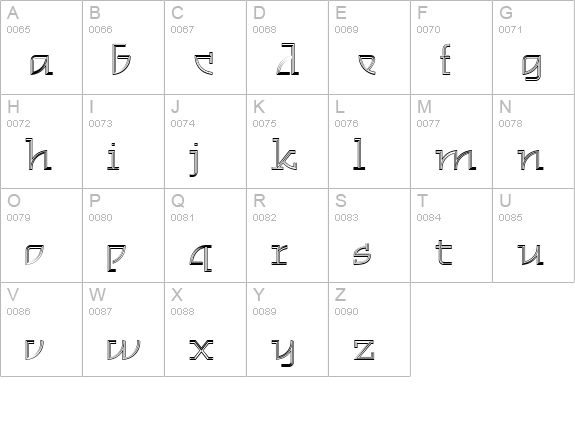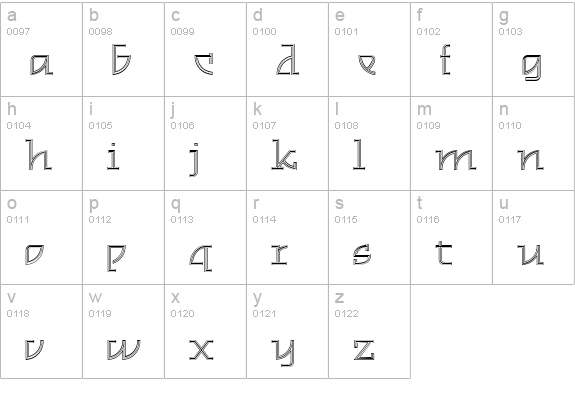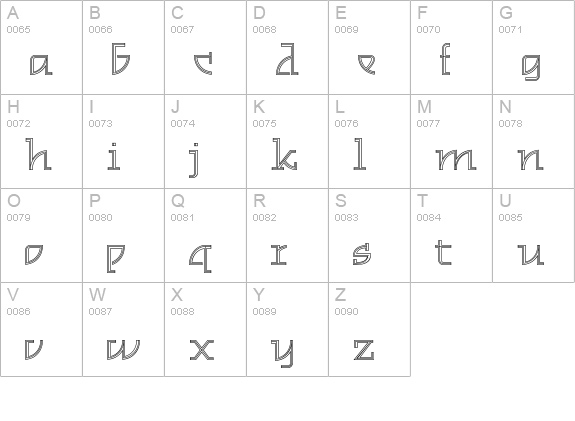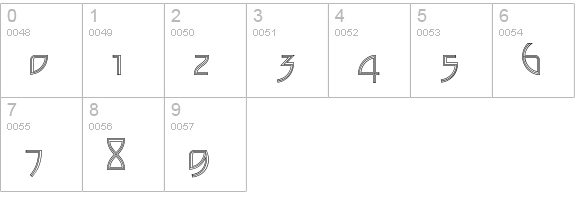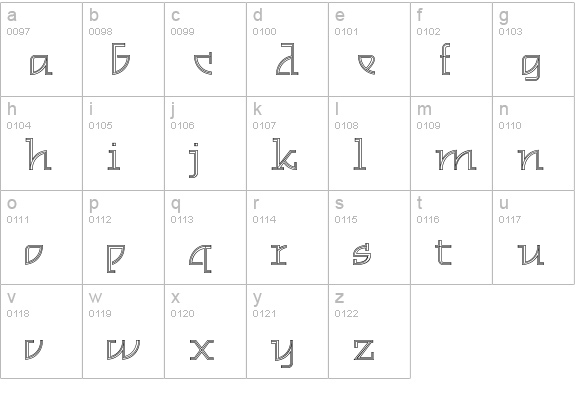
CambridgePinstripeNF Font Details
CambridgePinstripeNF is a sophisticated and elegant font that exudes timeless charm and classic appeal. The delicate pinstripe detailing adds a touch of refinement, making it perfect for creating professional and stylish designs. This versatile font is ideal for a wide range of projects, from branding to invitations to editorial layouts. One of the best things about CambridgePinstripeNF is that it is available for free download at FontsMarket.com. This means that you can easily access this beautiful font and use it in your projects without any cost. Whether you are a designer looking for a new font to add to your collection or a business owner in need of a fresh look for your branding, CambridgePinstripeNF is a fantastic choice that won't break the bank. With its timeless elegance and easy availability, CambridgePinstripeNF is sure to become a go-to font for all your design needs. Download it today and elevate your projects with this stunning typeface.